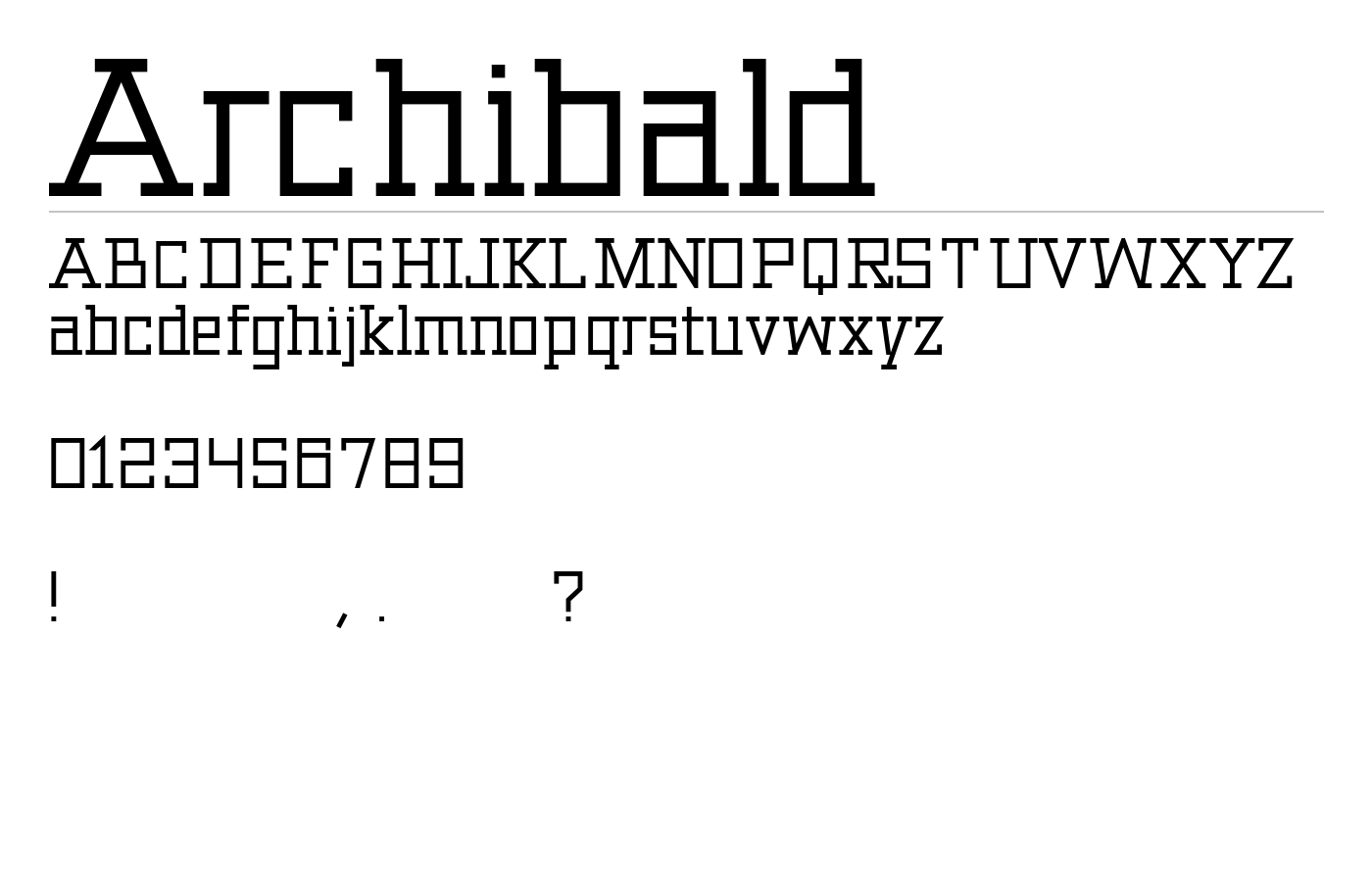
Archibald is a distinctive slab serif font with a strong, geometric structure and a bold presence. Its square, blocky forms and uniform stroke weight give it a modern yet industrial feel, making it ideal for headlines, posters, and branding that seek a confident and slightly unconventional look. This font’s clear readability combined with its unique style works well for fashion, editorial, and creative projects looking to stand out with a touch of vintage-inspired character.
Archibald Font